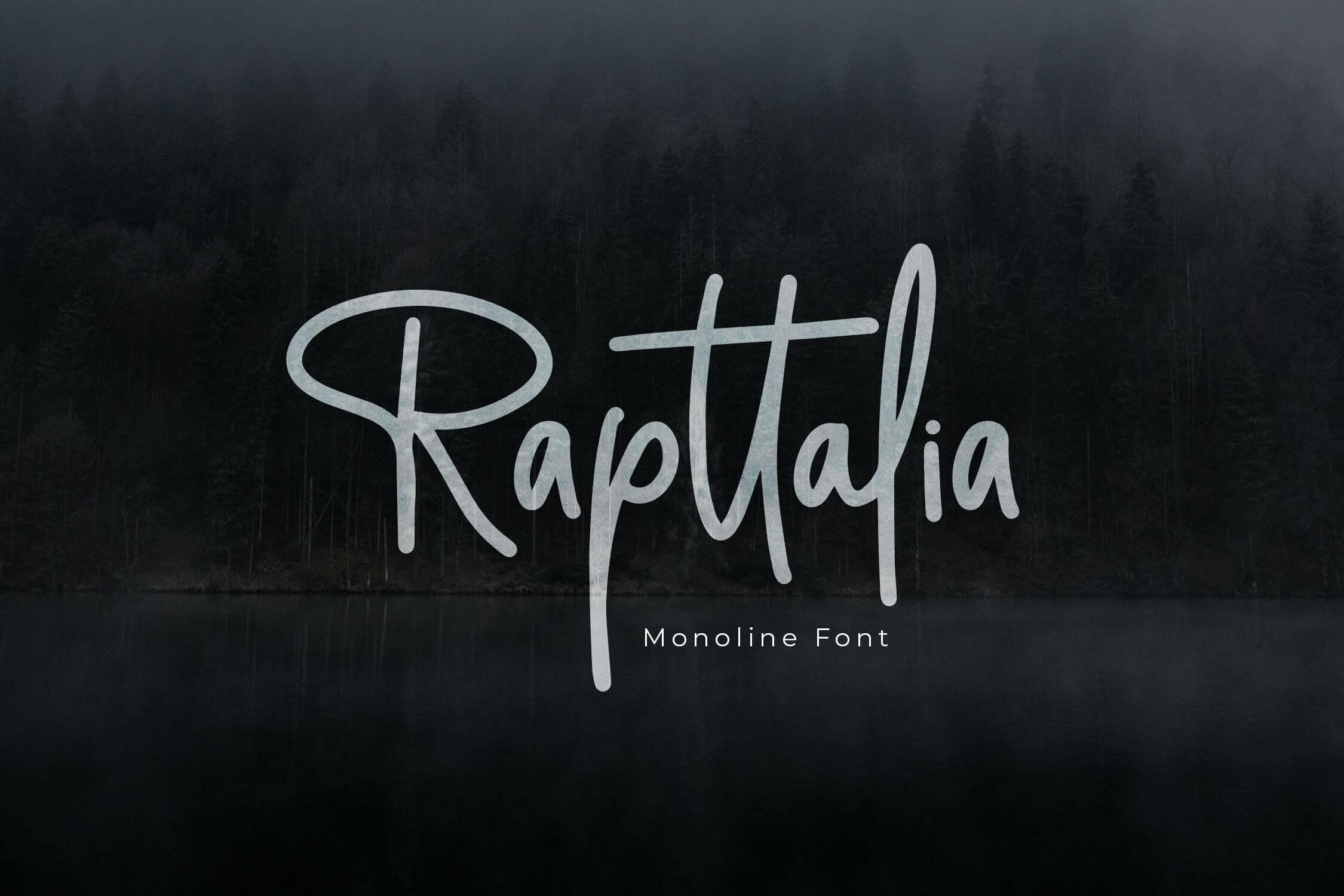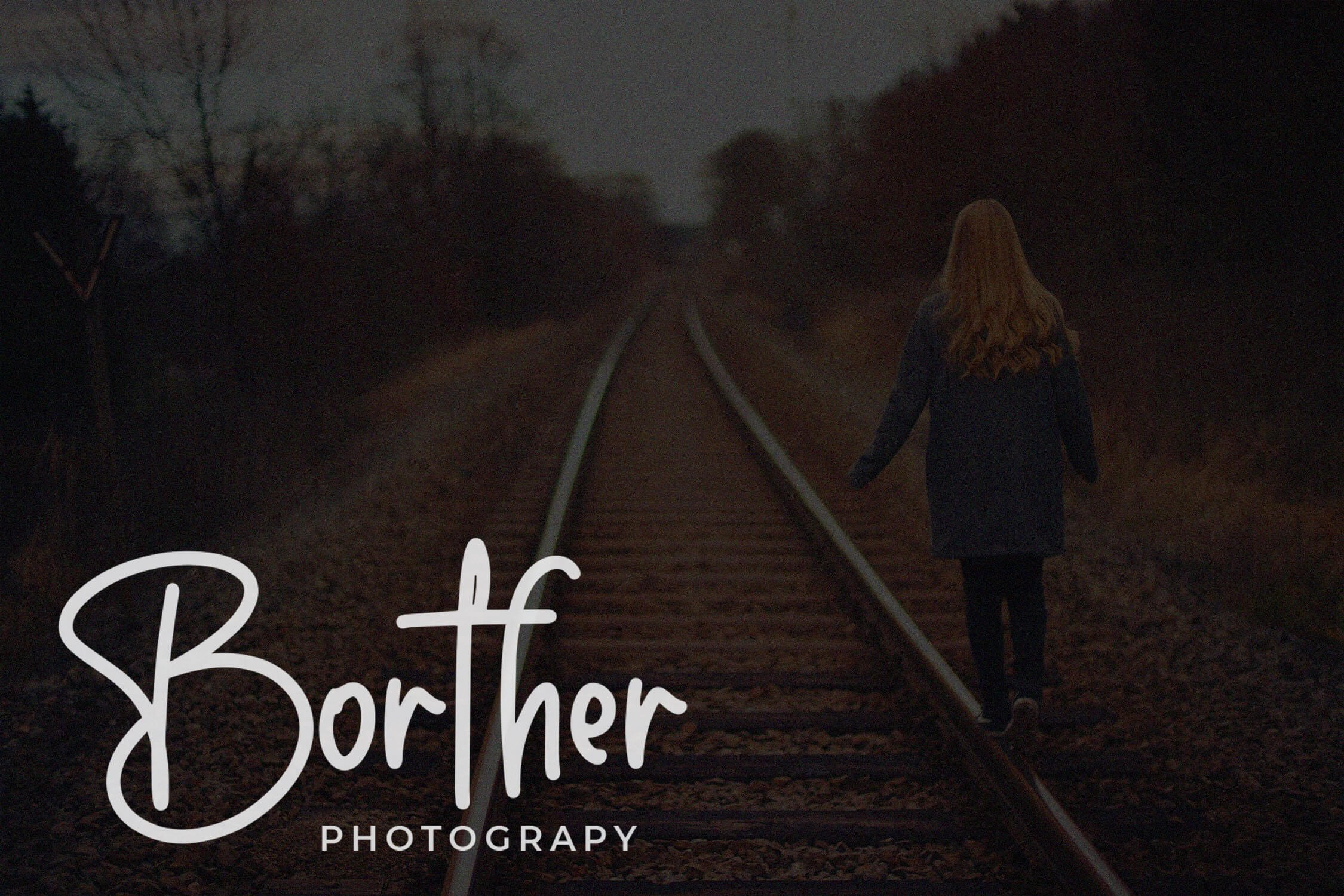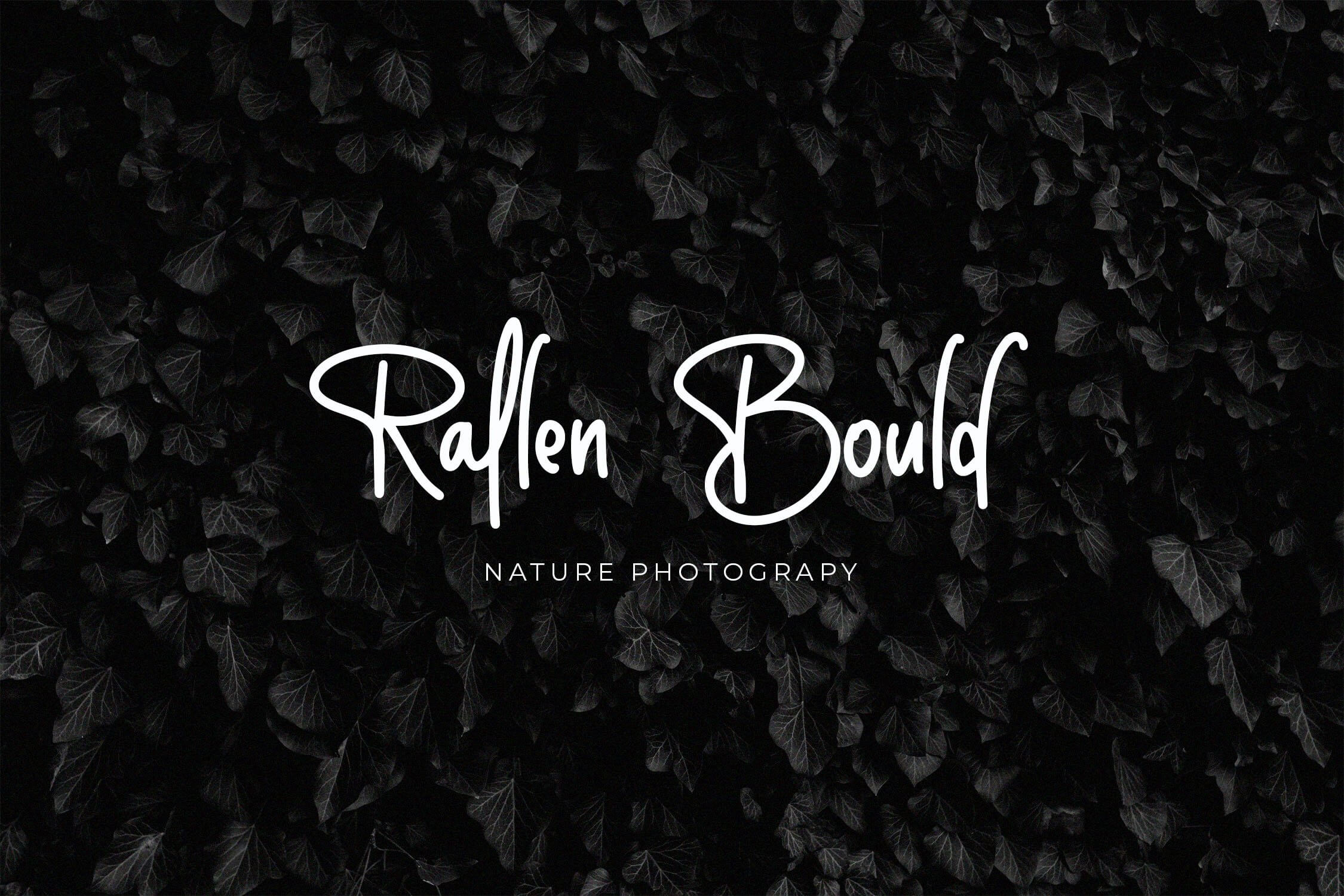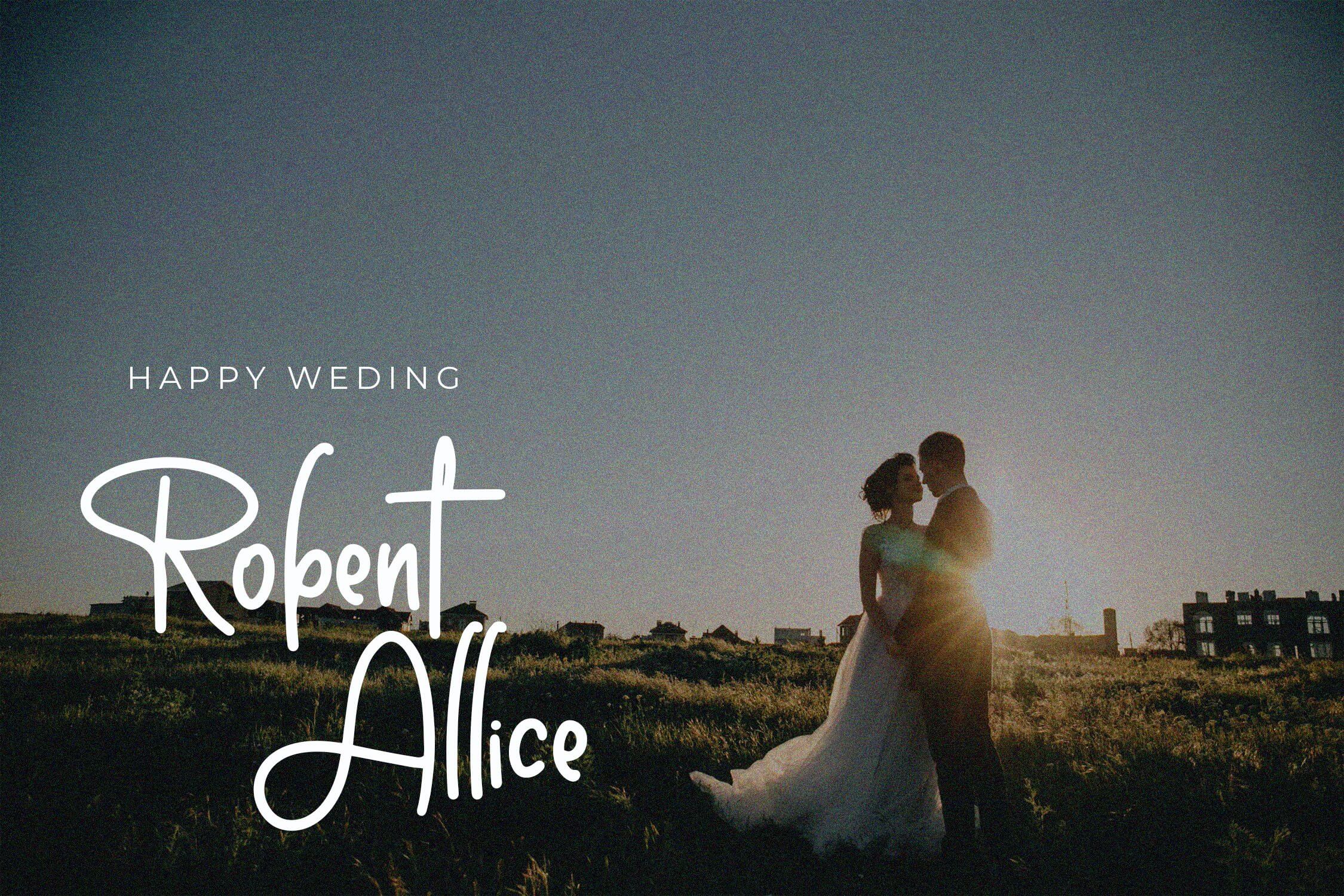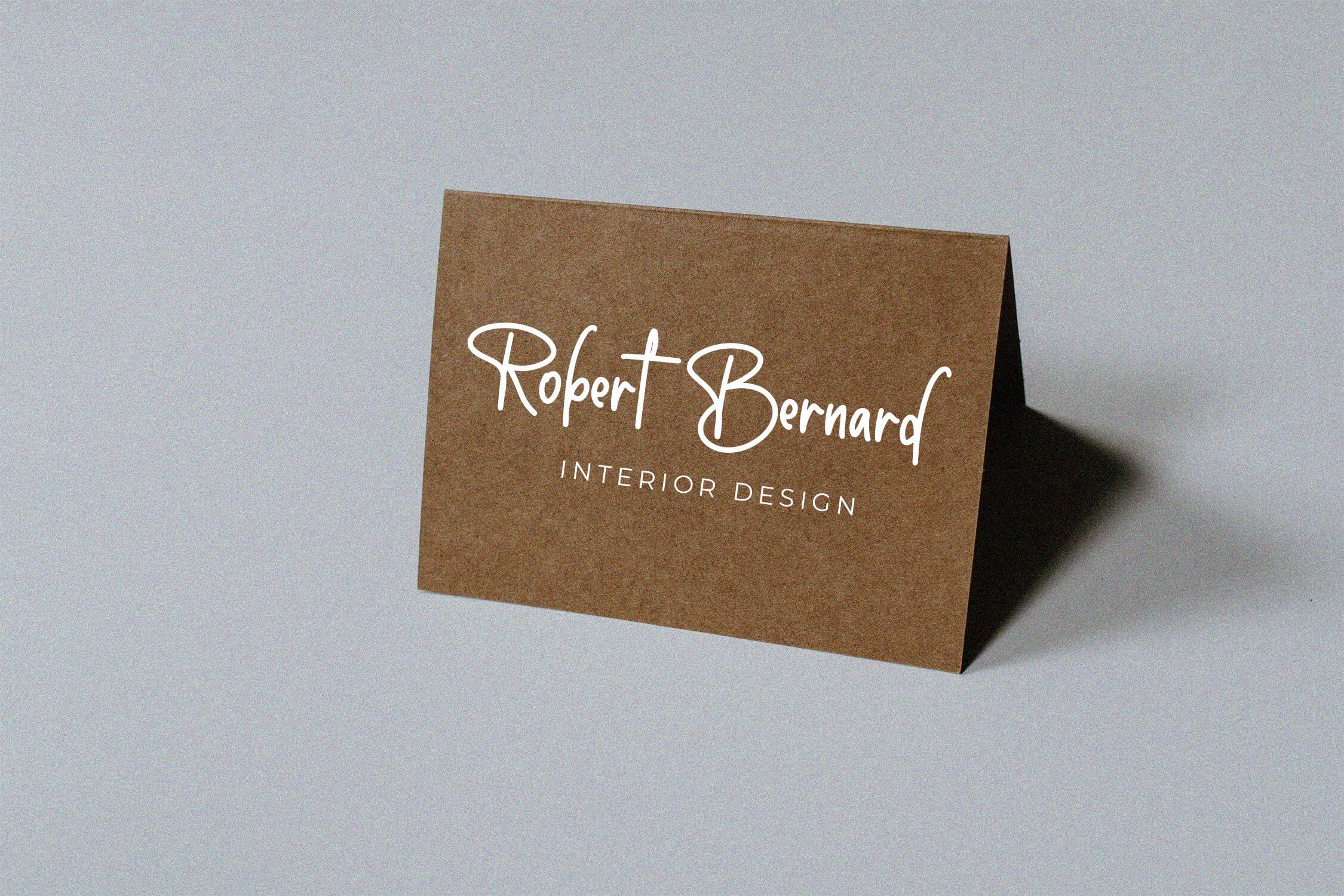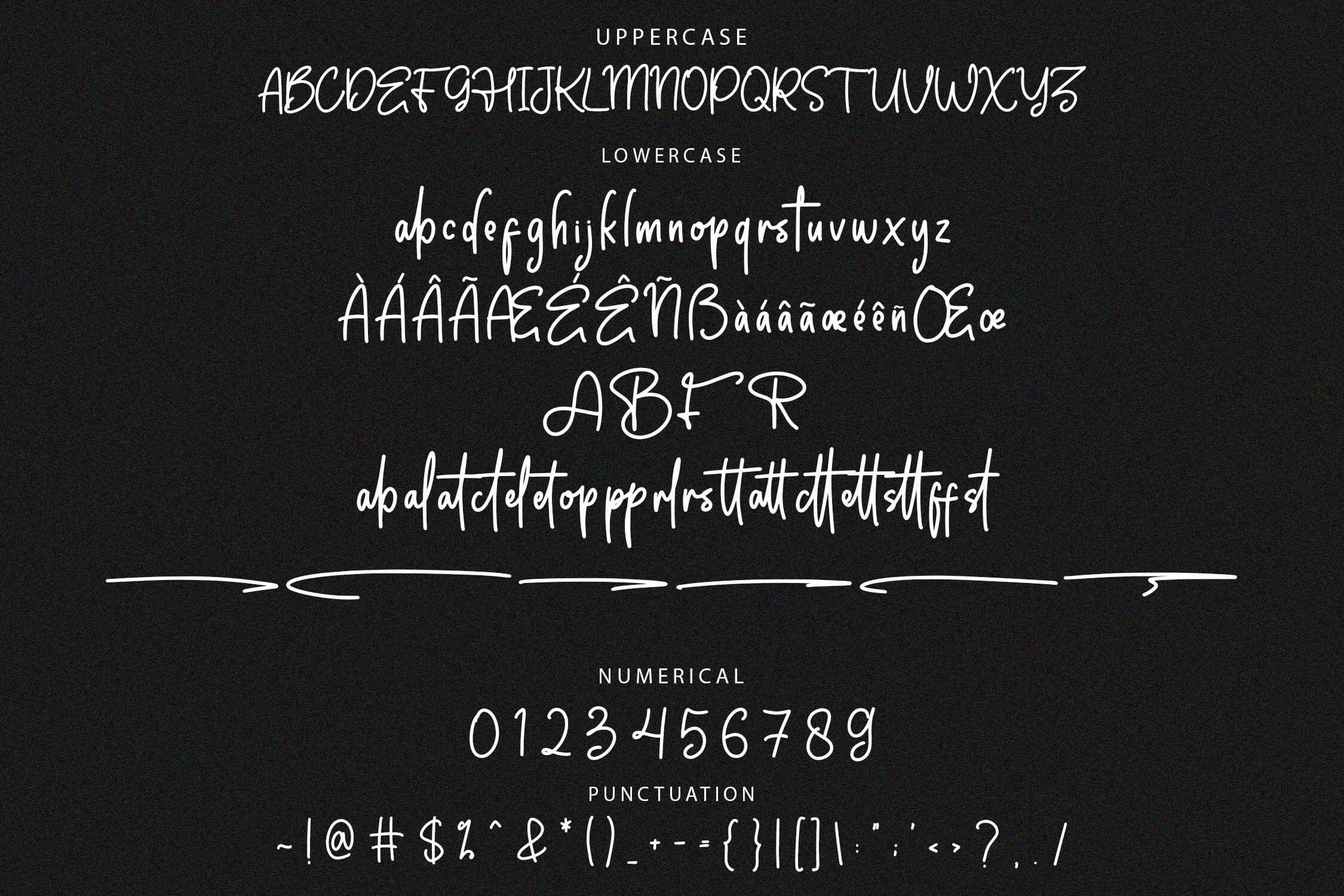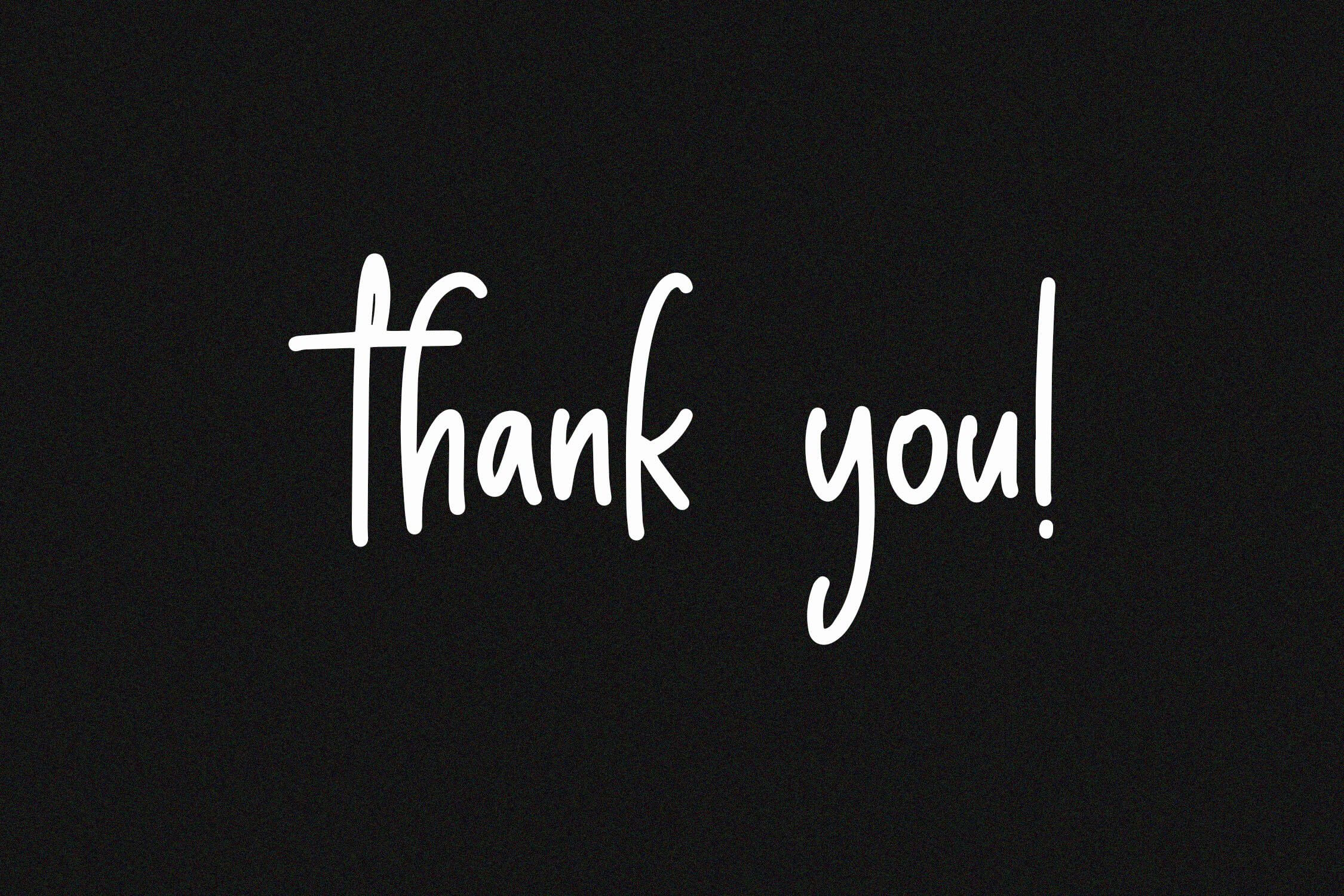
Introducing Rapttalia, a stunning handwriting font that features a beautiful monoline style. Designed with unique character shapes, this font adds a touch of elegance and sophistication to your projects. Ideal for branding, invitations, and other creative applications, Rapttalia enhances the visual appeal of your designs, making them truly stand out.
- Includes ligatures, stylistic alternates, and swashes
- Multilingual support for wider accessibility